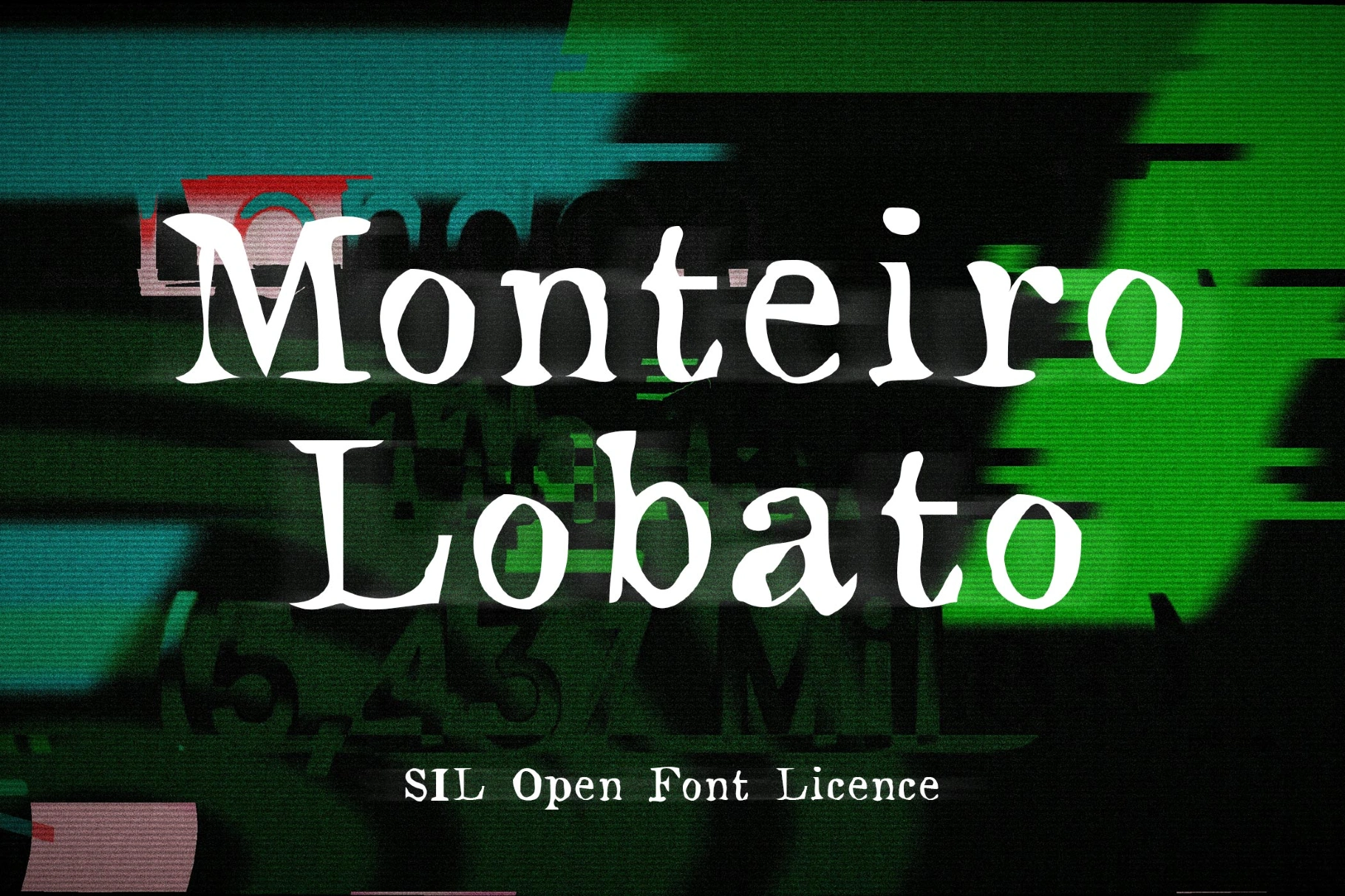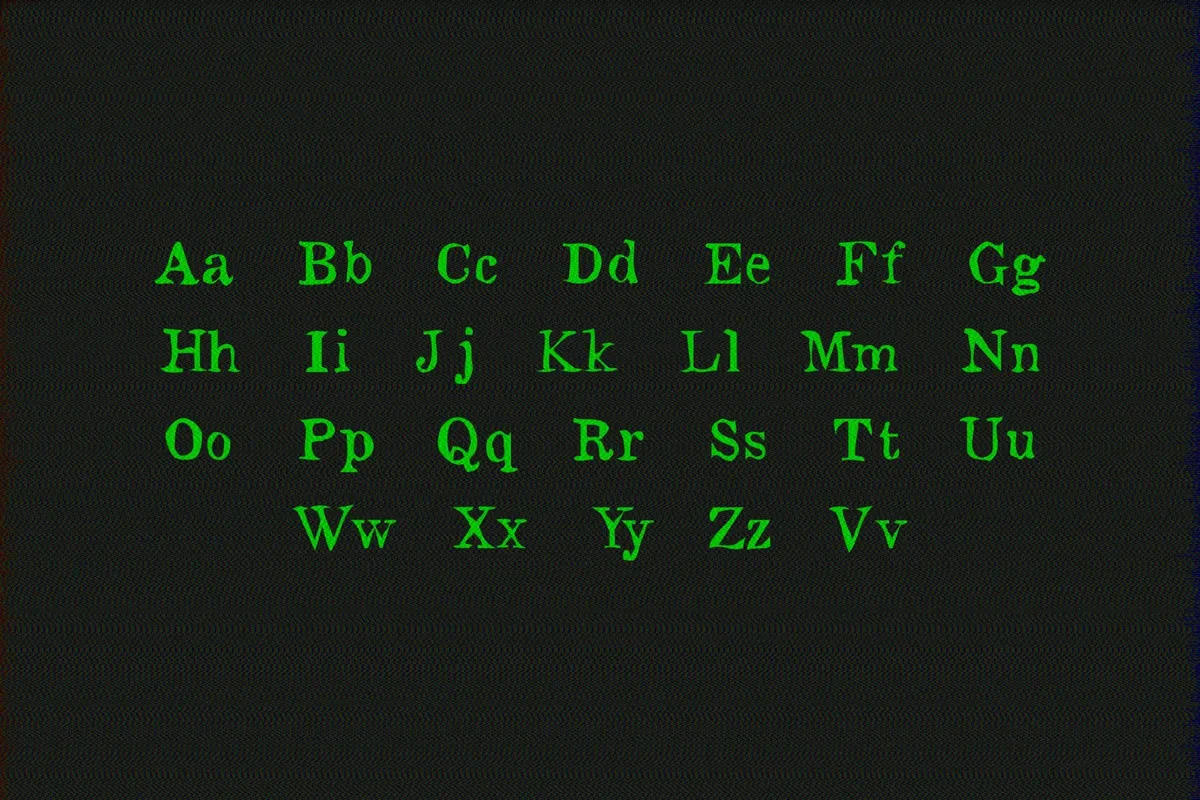
Monteiro Lobato Serif
Monteiro Lobato is a stark, utilitarian techno display with squared curves and aggressive texture. The look is clearly reminiscent of 1990s LCD readouts and grindhouse film titles. Works best for game and sci-fi titles, UI headings, tech brand marks, poster headlines, festival flyers, streetwear graphics, packaging, album artwork, and product labeling.